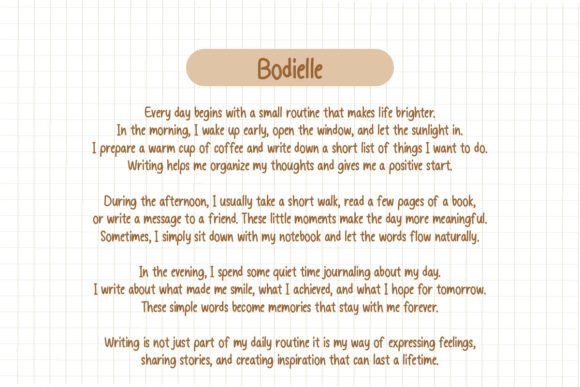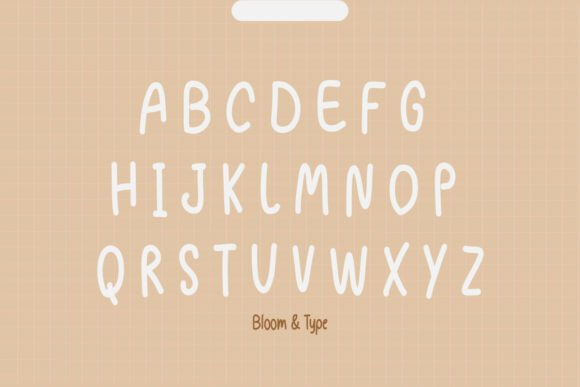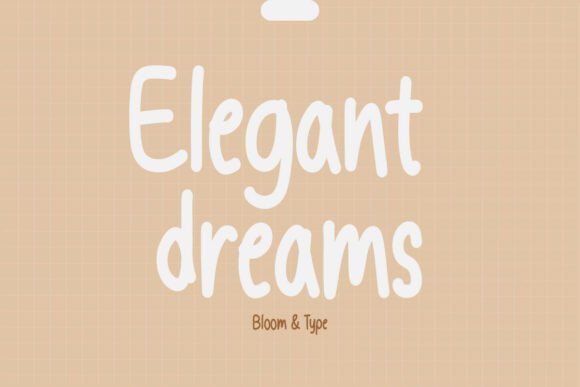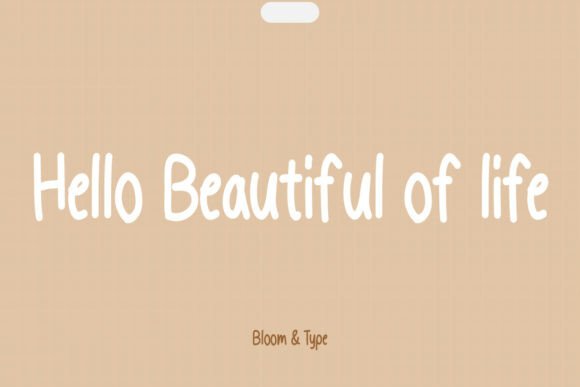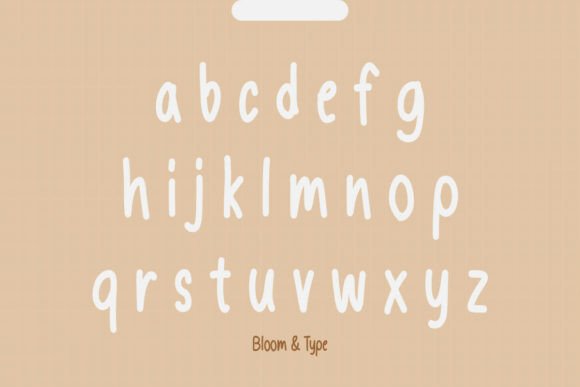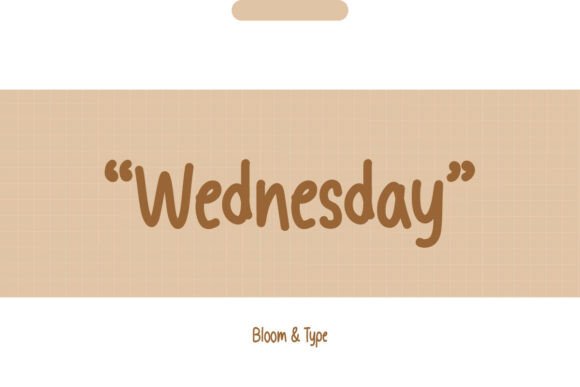
Bodielle Font: The Perfect Handwritten Font for Your Designs
Are you looking for a font that adds a touch of warmth and personality to your designs? Look no further than Bodielle, a playful and friendly handwritten font that’s perfect for bringing a sense of coziness and approachability to your work. With its soft curves, slightly uneven strokes, and natural flow, Bodielle captures the charm of authentic everyday handwriting, making it ideal for a wide range of design projects.
The Characteristics of Bodielle
Bodielle is designed to feel relaxed yet stylish, offering a perfect balance between casual and clean. Its rounded letterforms make it highly readable, while still maintaining a unique and handcrafted look that stands out in any layout. The font’s smooth, rounded edges and natural flow give it a soothing and organic feel, reminiscent of handwritten notes and journaling.
Inspiration and Design
Bodielle was inspired by simple journaling moments and creative note-taking. The font’s design is rooted in the idea of capturing the essence of everyday handwriting, making it perfect for designers and crafters who want to add a personal touch to their work. Whether used for quotes, branding, or social media content, Bodielle delivers a cheerful and modern handwritten aesthetic that’s sure to engage and delight your audience.
Bodielle comes with a range of features that make it an excellent choice for designers and crafters. These include:
- A–Z uppercase & lowercase letters
- Numbers & punctuation
- Multilingual support, making it suitable for a wide range of international design projects
- A playful and natural handwritten style that’s perfect for adding a touch of personality to your designs
- Smooth, rounded, and easy-to-read letterforms that make it perfect for body text and headlines
Bodielle is perfect for designers and crafters who want to add a touch of warmth and personality to their work. Whether you’re creating social media graphics, branding materials, or digital journals, Bodielle is the perfect font to bring your designs to life. Its unique and handcrafted look makes it stand out from more traditional fonts, while its readability and smooth flow make it perfect for longer blocks of text.
Multilingual Support
One of the standout features of Bodielle is its multilingual support. This means that designers and crafters can use the font for a wide range of international design projects, without worrying about language limitations. Whether you’re working on a project in English, Spanish, French, or any other language, Bodielle has got you covered.
Tips for Using Bodielle
Here are a few tips for getting the most out of Bodielle:
- Use Bodielle for body text and headlines to add a touch of personality to your designs
- Experiment with different colors and textures to bring out the font’s natural and organic feel
- Pair Bodielle with other fonts to create a unique and eye-catching typography combination
- Use Bodielle for social media graphics, branding materials, and digital journals to add a touch of warmth and personality to your work
In conclusion, Bodielle is a fantastic font that’s perfect for designers and crafters who want to add a touch of warmth and personality to their work. With its playful and friendly handwritten style, smooth curves, and natural flow, Bodielle is ideal for a wide range of design projects. Its multilingual support, OTF & TTF files, and easy-to-read letterforms make it a practical choice, while its unique and handcrafted look makes it a standout font that’s sure to engage and delight your audience.